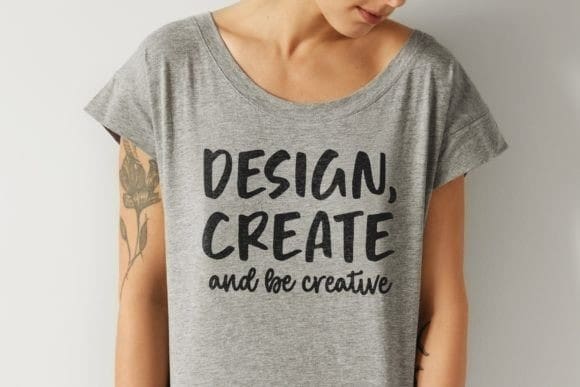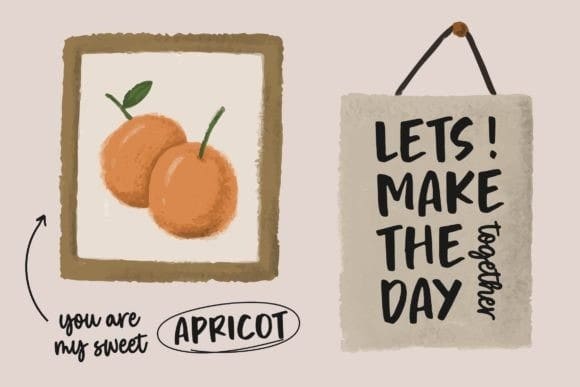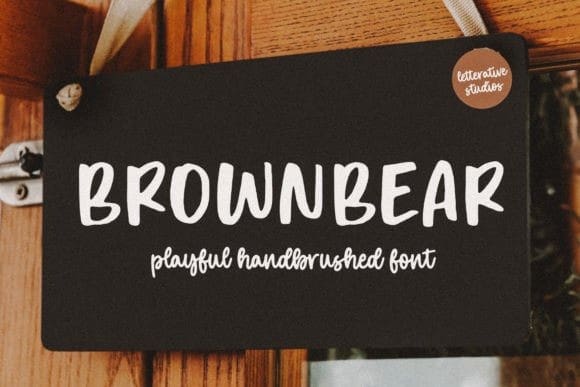
Brownbear Display Font
Brownbear Display Font, is a stylish and fresh handwritten font. Whatever the topic, this font will be a wonderful asset to your font library, as it has the potential to enhance any creation.This font is PUA encoded which means you can access all glyphs and swashes with ease!